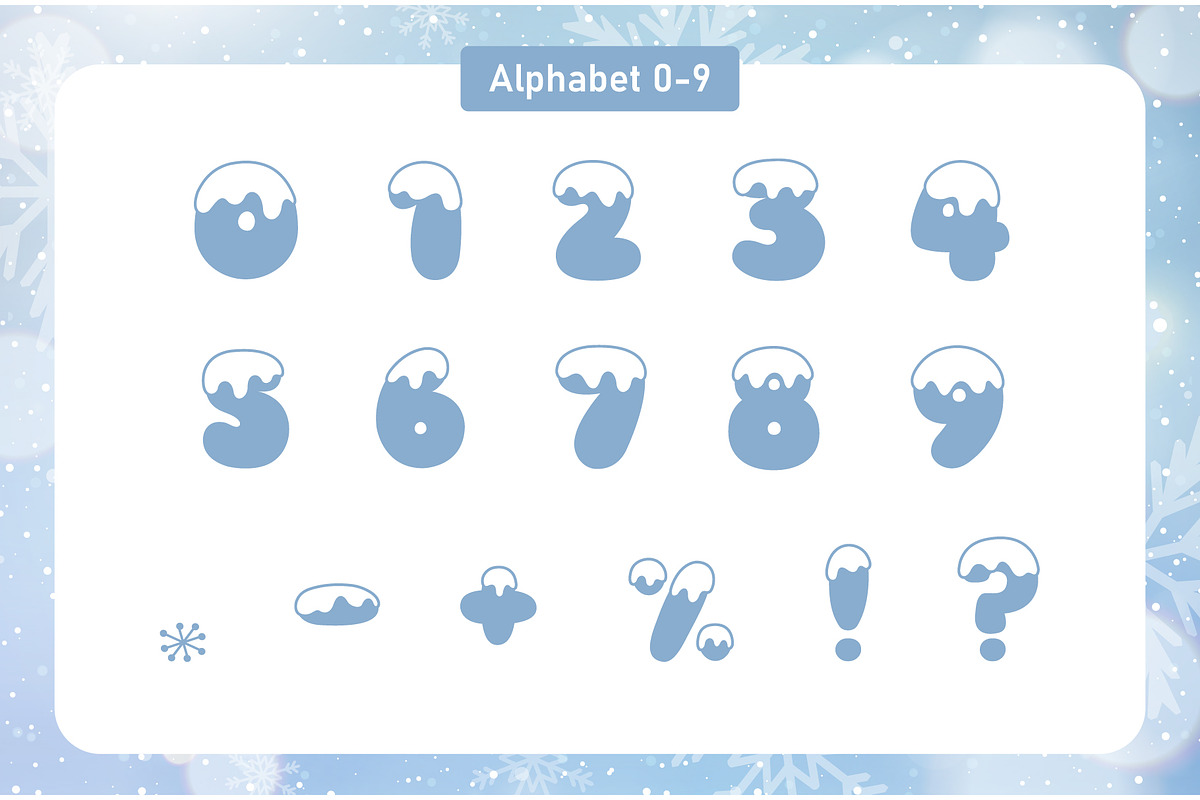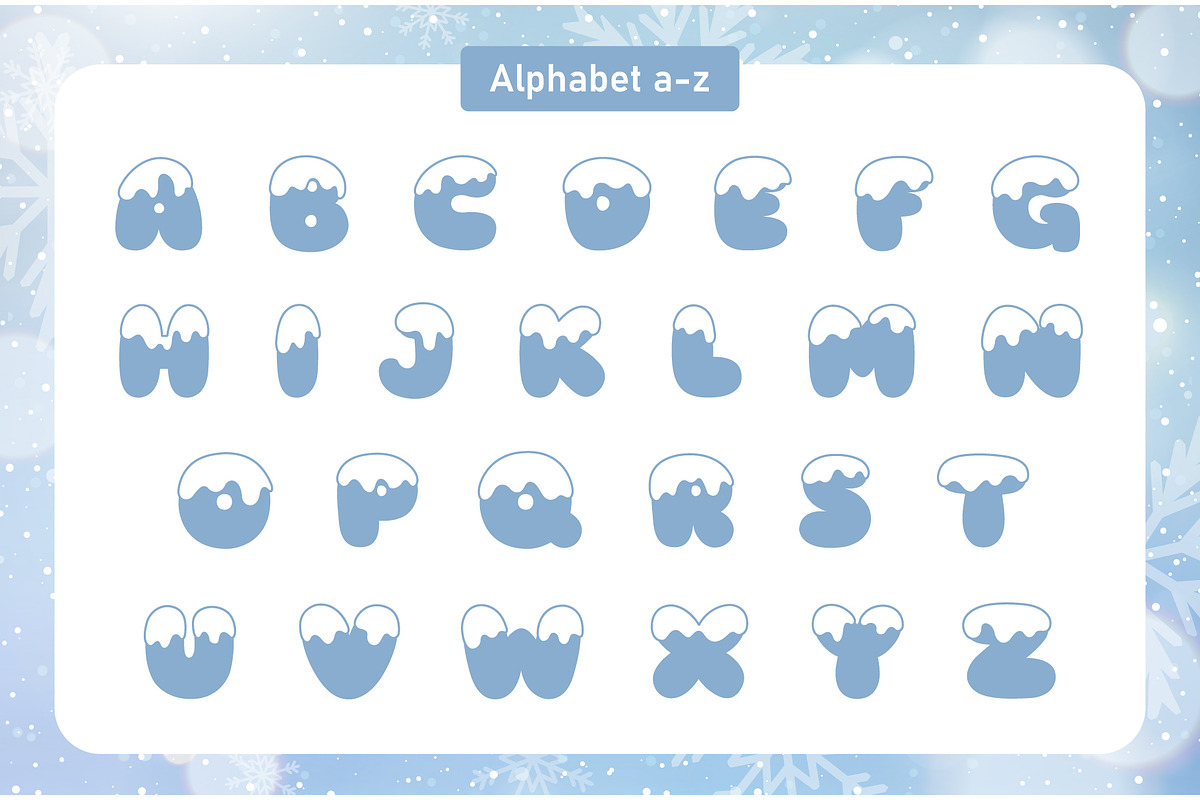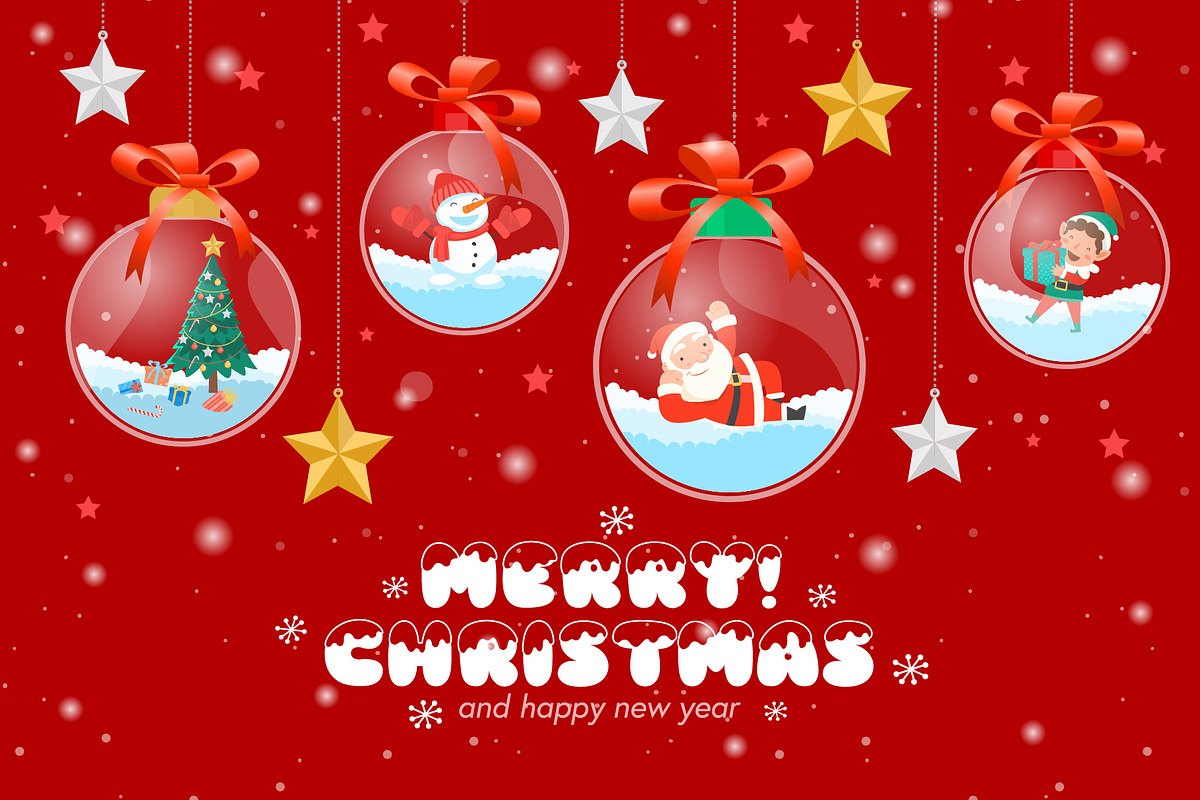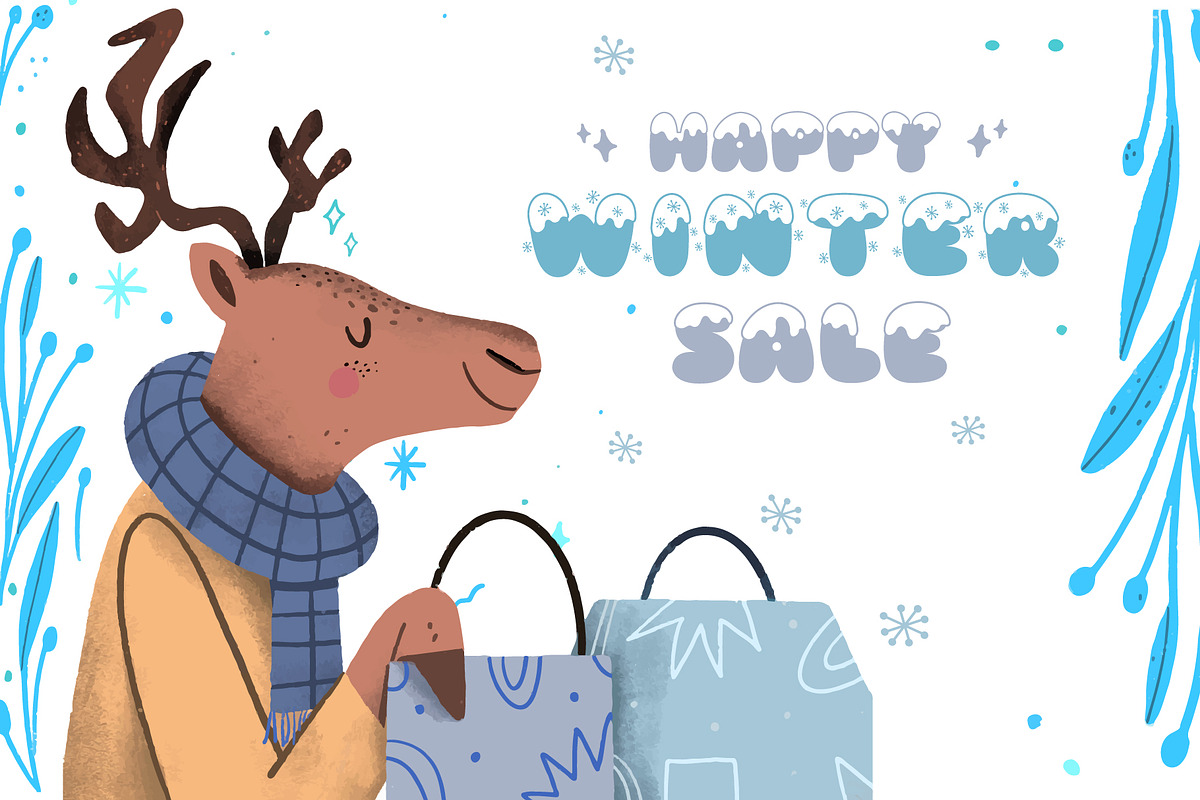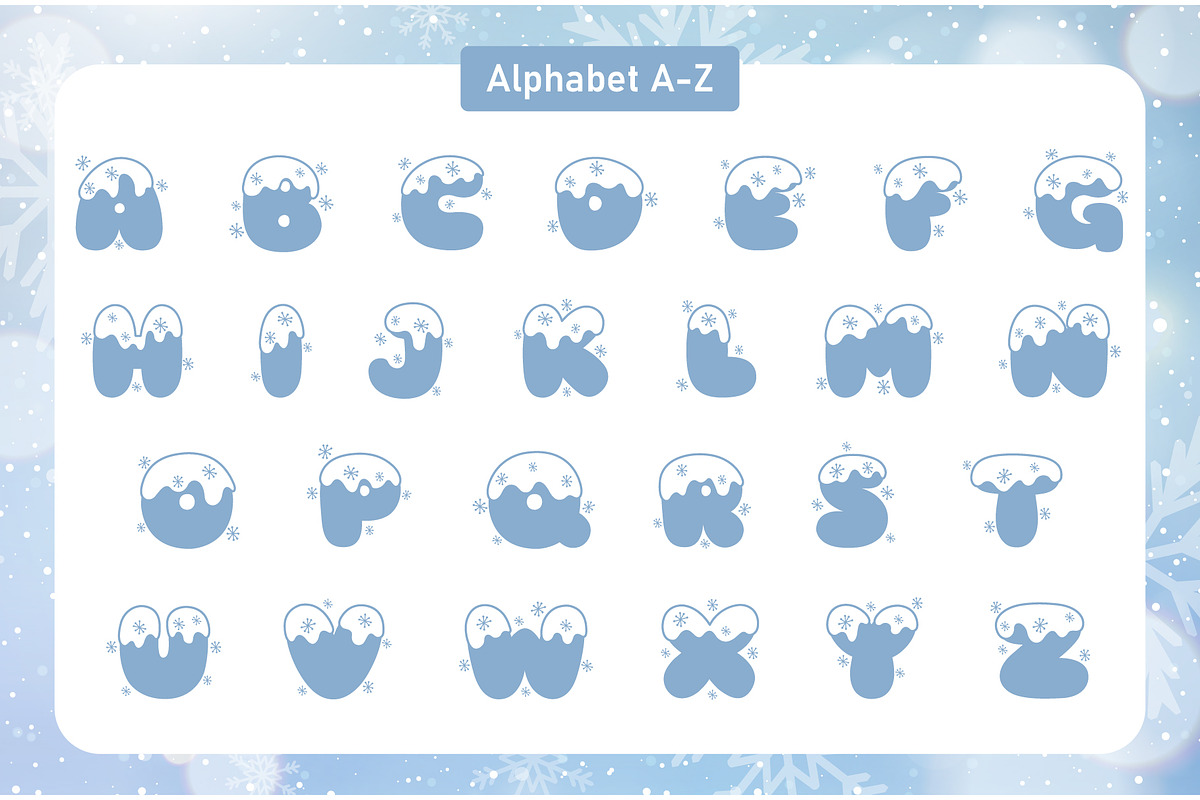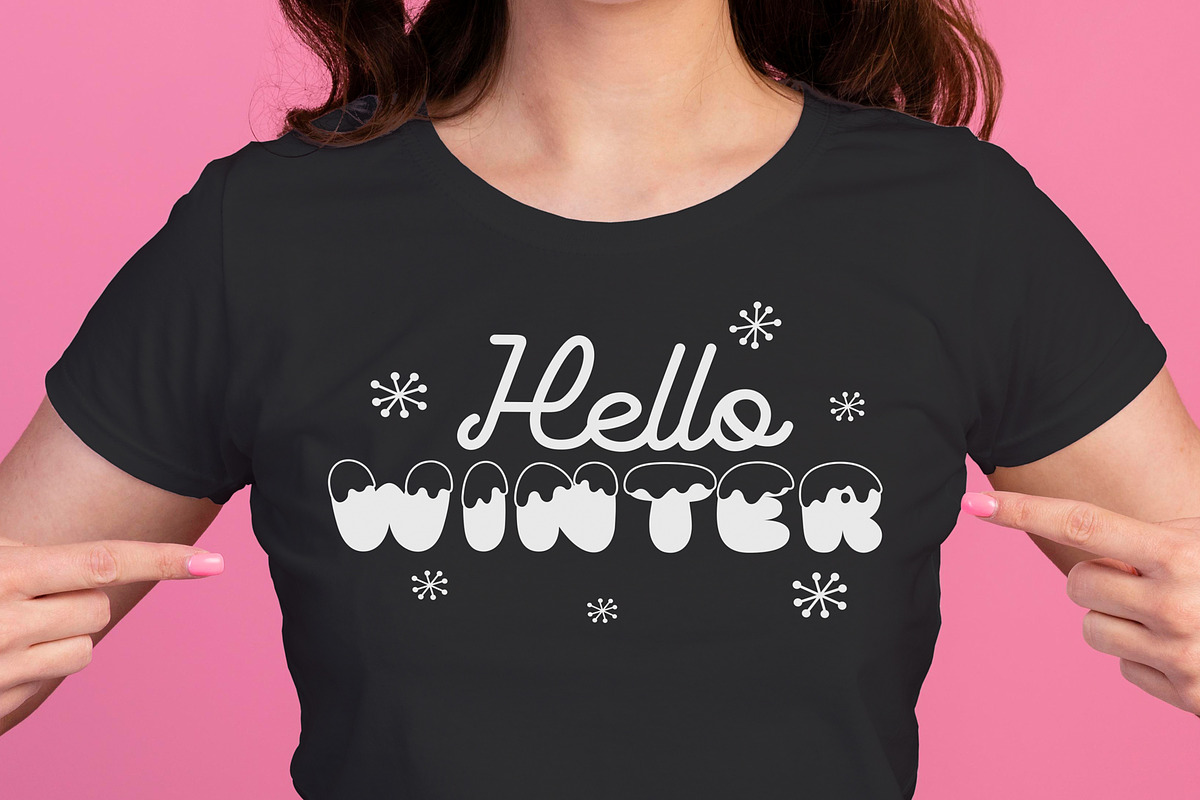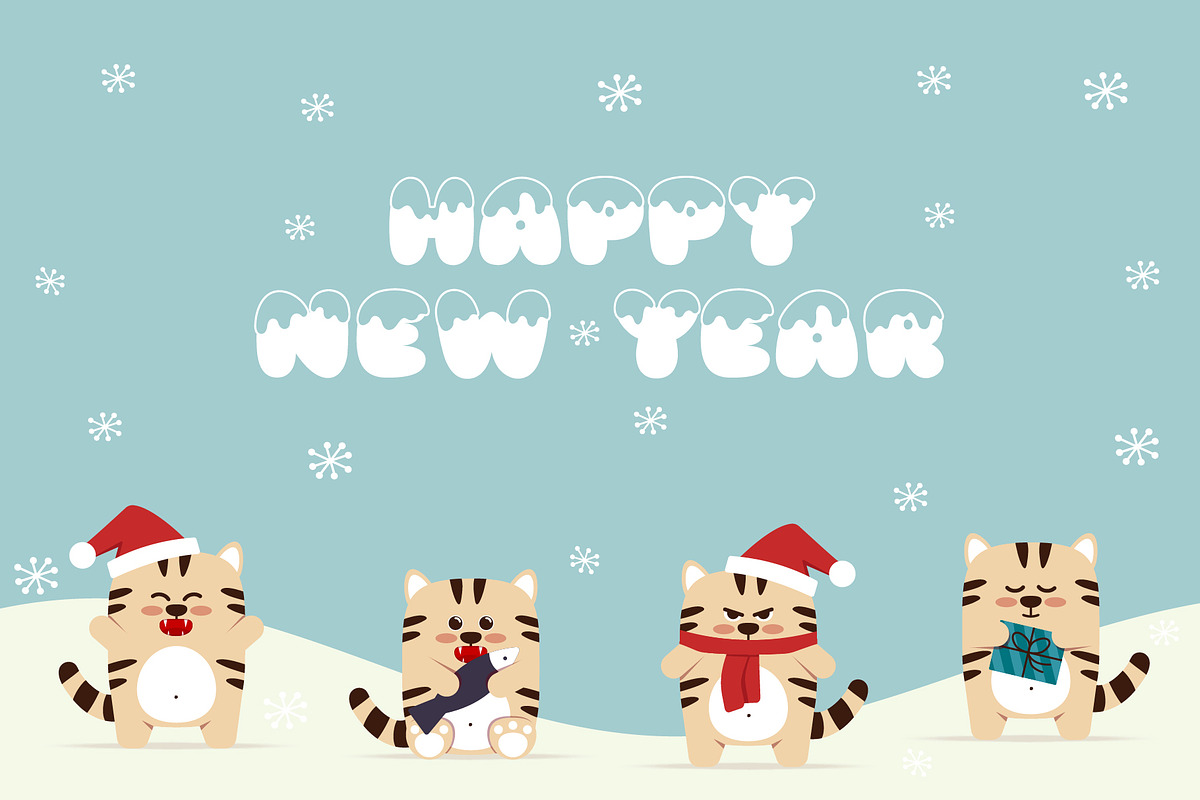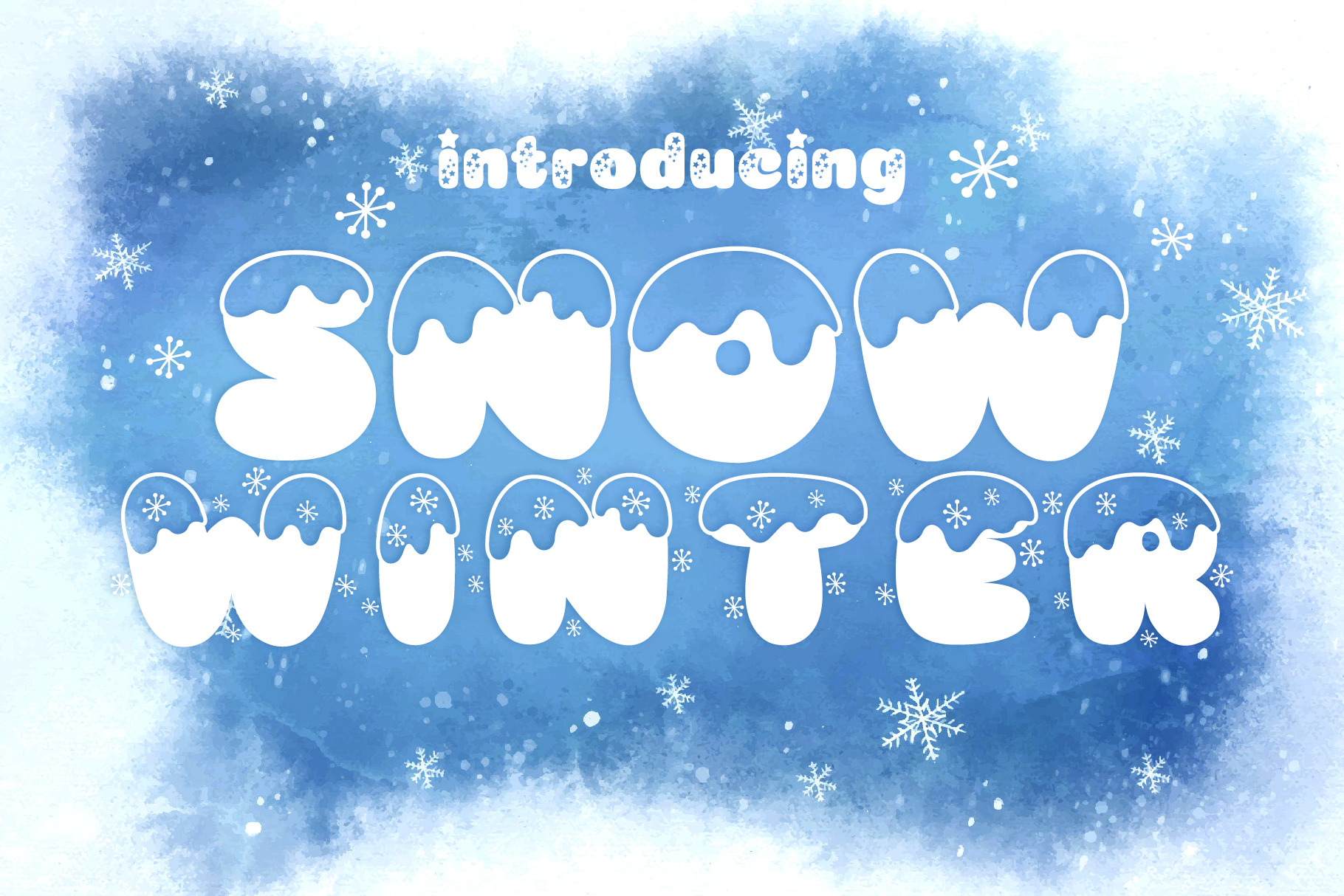
Snow Winter Decorative Font
Snow Winter is a cute and fun decorative font, perfect to use for your winter and Christmas-themed designs. Fall in love with its authentic feel and use it to create gorgeous invitations, beautiful stationary art, eye-catching social media posts, and cute greeting cards. Add it now to your fonts library, and start creating spectacular designs!